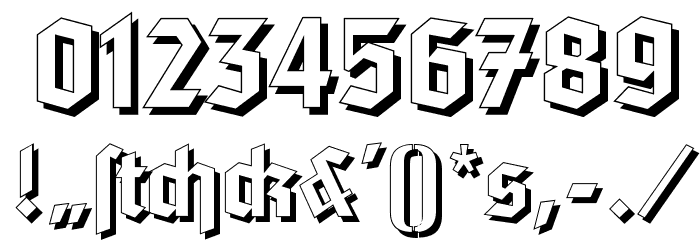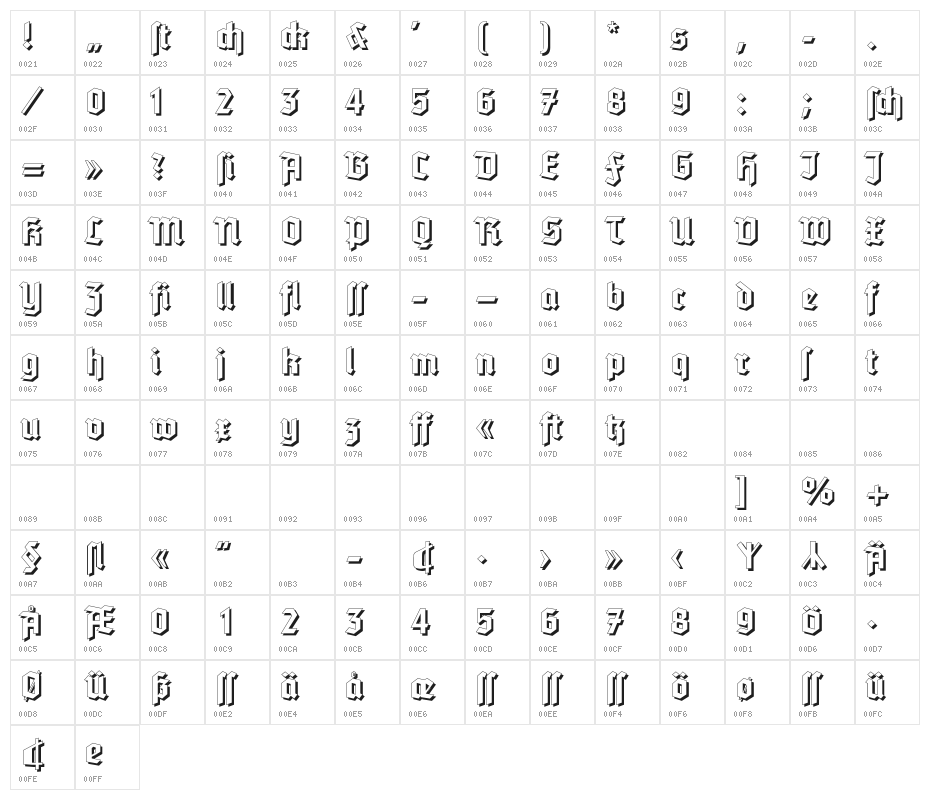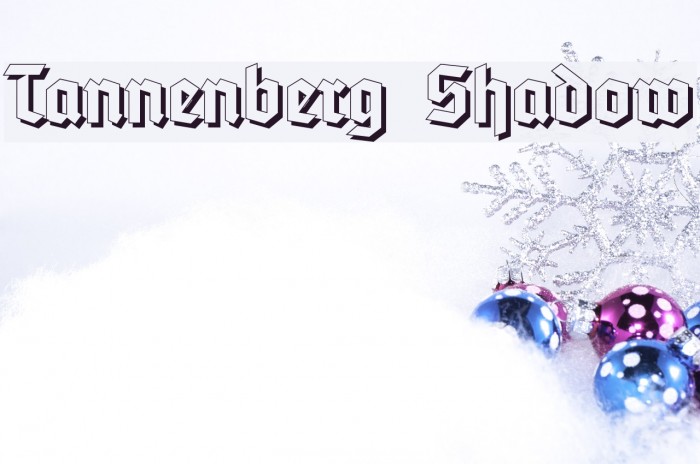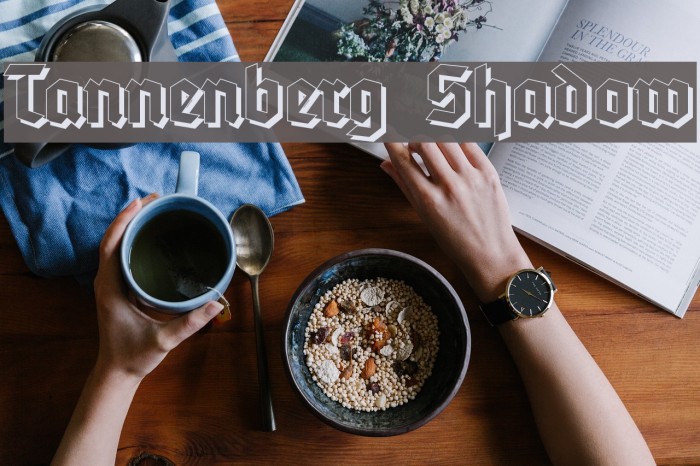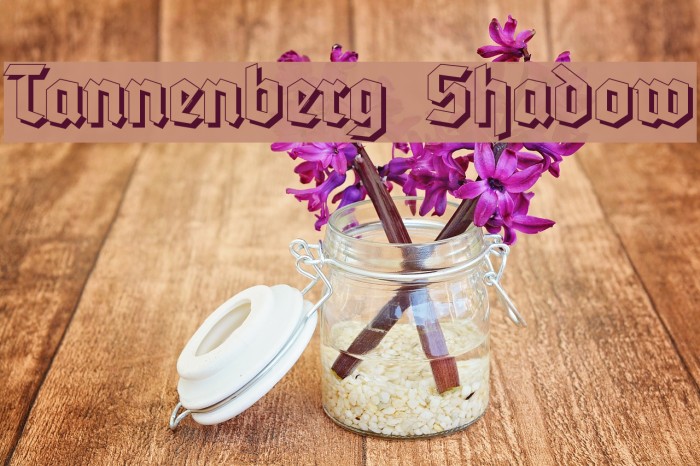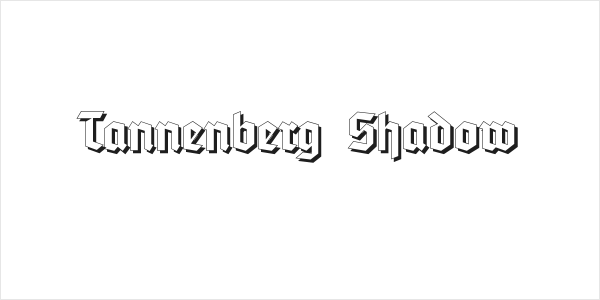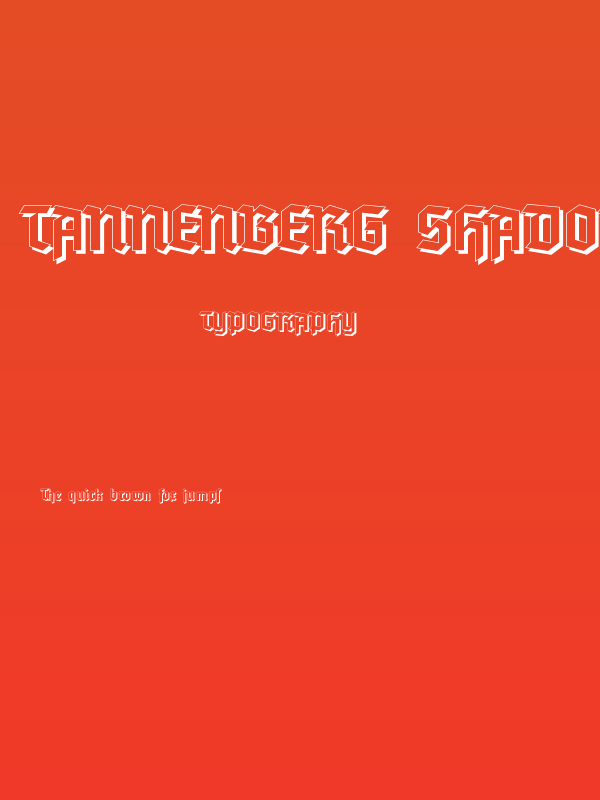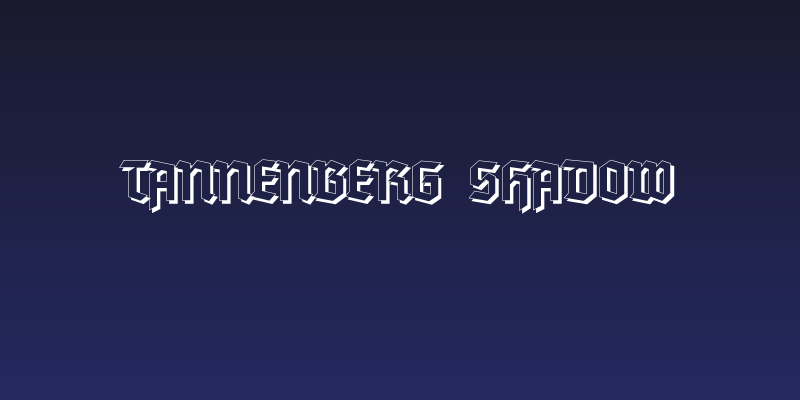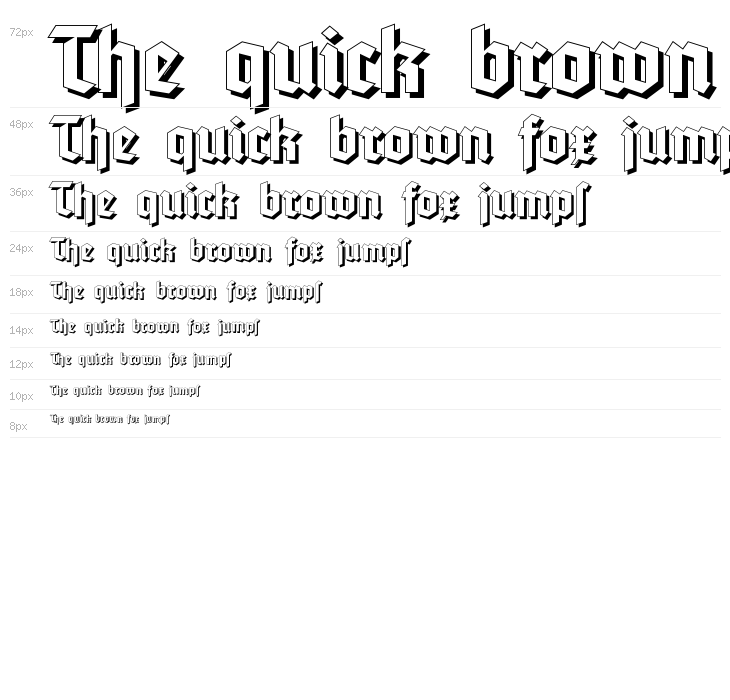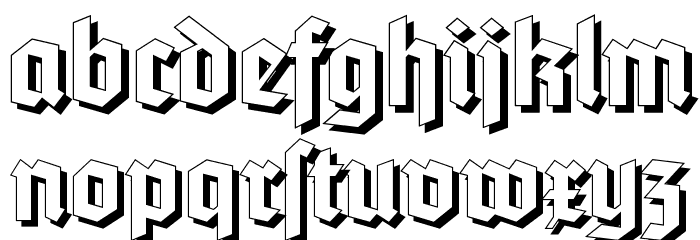
Tannenberg Shadow Font
Tannenberg Shadow Description
This font features a bold, shadowed style with a strong, angular design reminiscent of Gothic or Blackletter typefaces. The characters are outlined with a thick black shadow, giving them a three-dimensional appearance. The uppercase and lowercase letters maintain a consistent geometric structure, with sharp edges and pointed serifs that enhance the dramatic effect. The numerals and special characters follow the same stylistic approach, ensuring uniformity across all glyphs. This font's distinct and striking appearance makes it suitable for projects that require a bold and attention-grabbing typeface.
| Proposed Projects | Ideal for posters, logos, headlines, and any design requiring a dramatic and impactful typeface. |